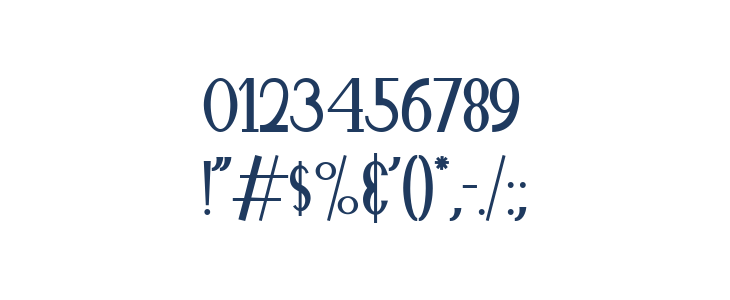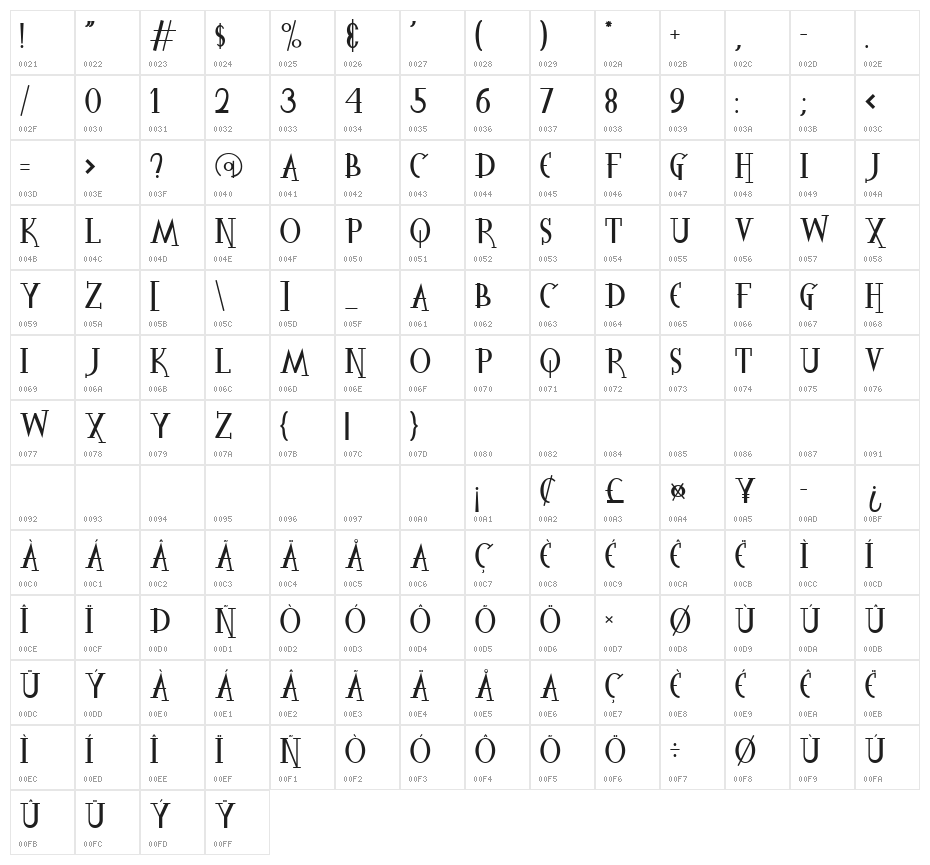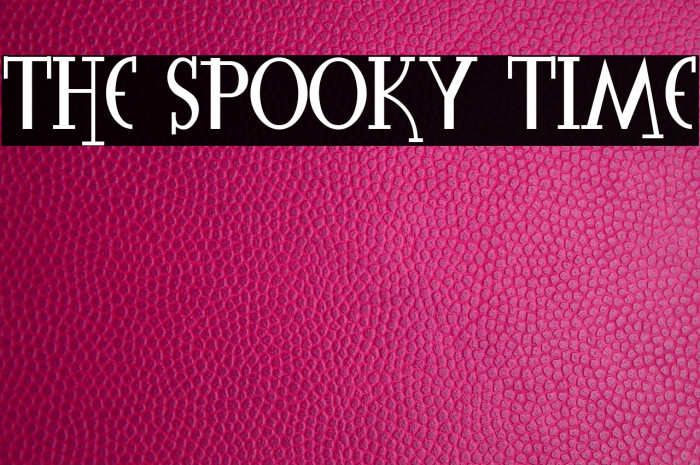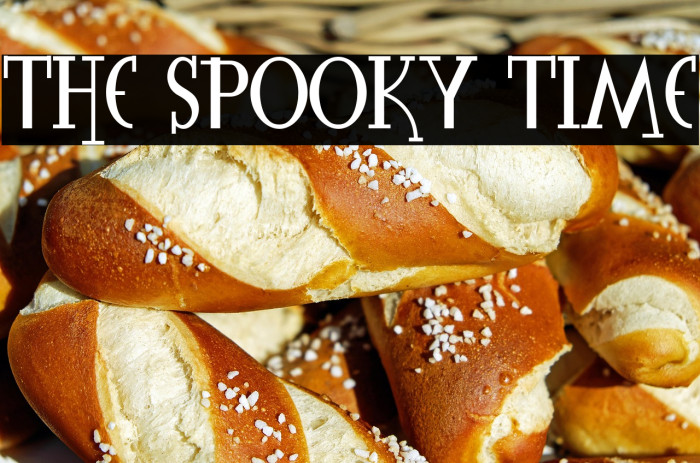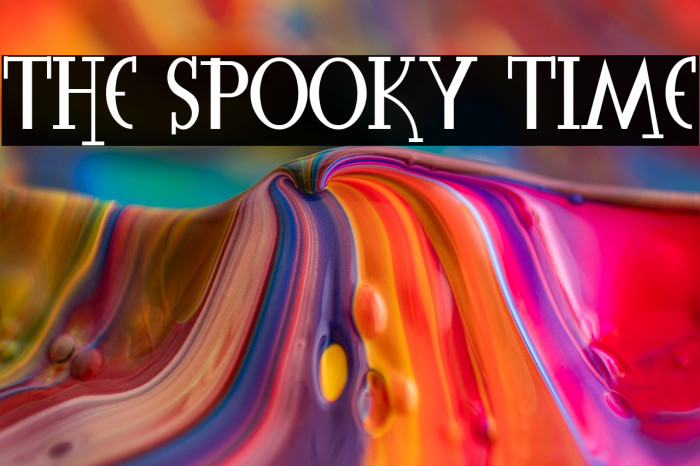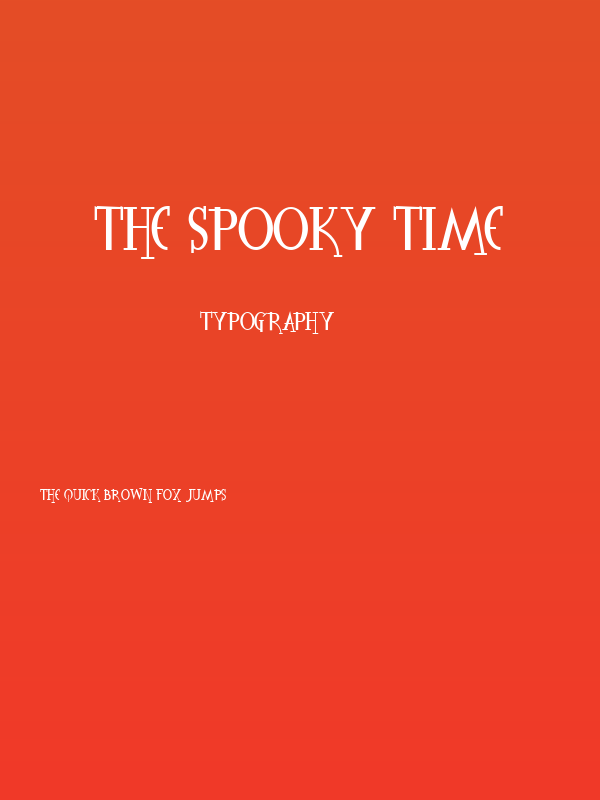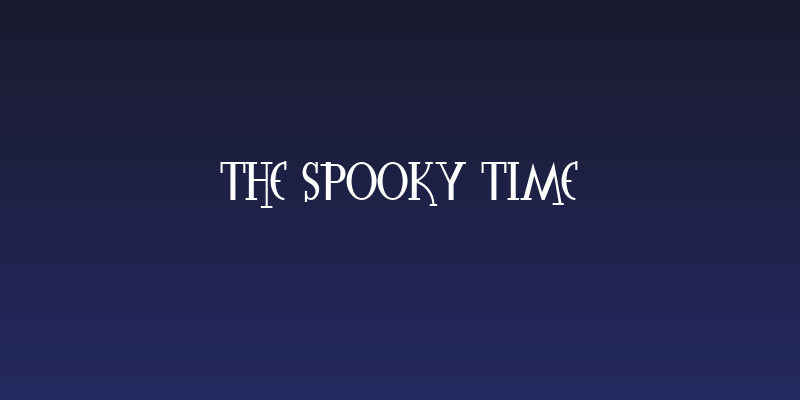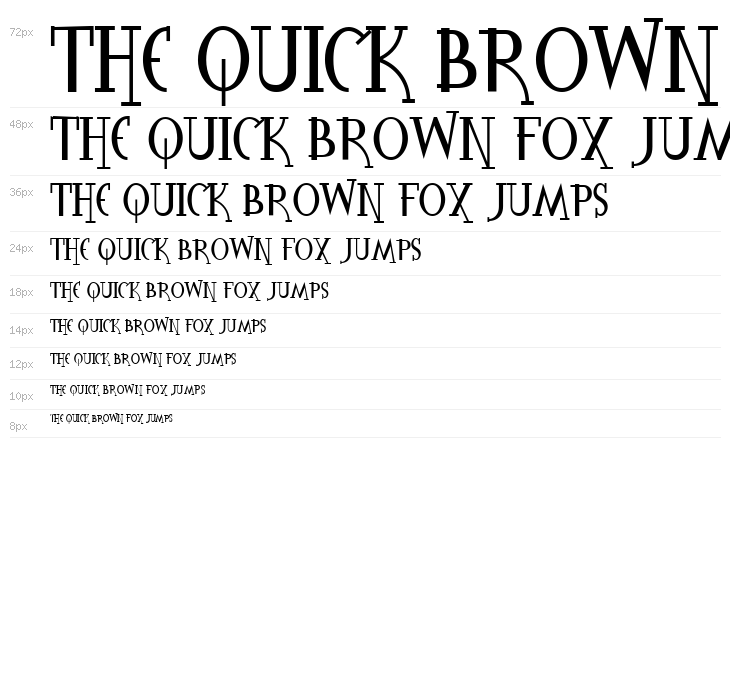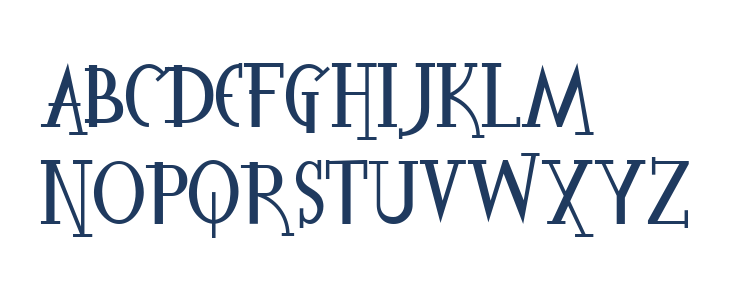
The Spooky Time Font
This font features a distinct and playful design with a spooky, Halloween-inspired aesthetic. The characters are tall and narrow, with sharp, pointed serifs that give them a slightly eerie appearance. The uppercase letters have a unique style, with some featuring elongated vertical strokes that add to the dramatic effect. The lowercase letters maintain a consistent design, complementing the uppercase set. Numbers and special characters are crafted with the same attention to detail, ensuring a cohesive look throughout. The font's overall style is decorative, making it suitable for themed projects that require a touch of mystery or fantasy.
| Proposed Projects | Ideal for Halloween invitations, themed posters, spooky event flyers, and decorative signage. |